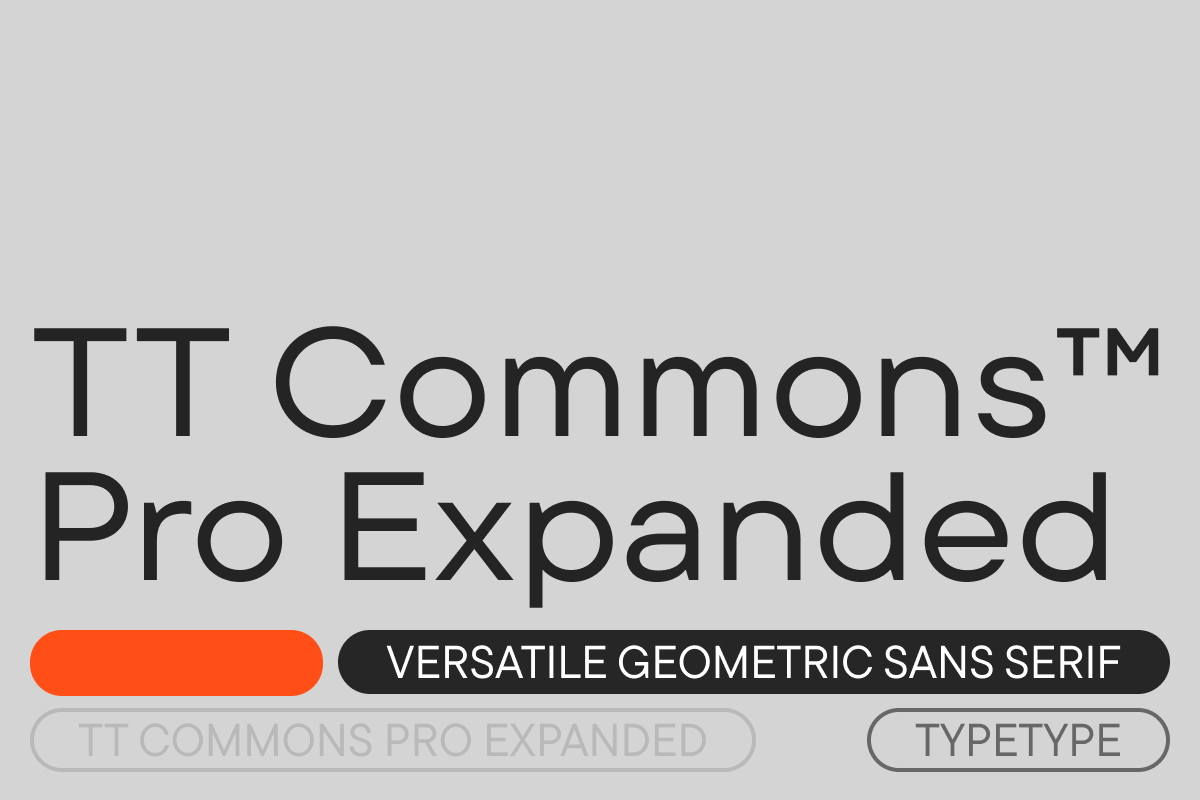
TT Commons Pro Expanded Thin Italic
TT Commons™ Pro is a geometric sans serif. It is one of the studio’s most in-demand typefaces, recognized for its versatile character, extensive character set with support for a vast number of languages. TT Commons™ Pro became a bestseller for a reason: its range of application isn’t just broad—we dare say it’s limitless! If you need an all-purpose typeface that is suitable for both everyday tasks and creating stylish designs—you’ve found it!